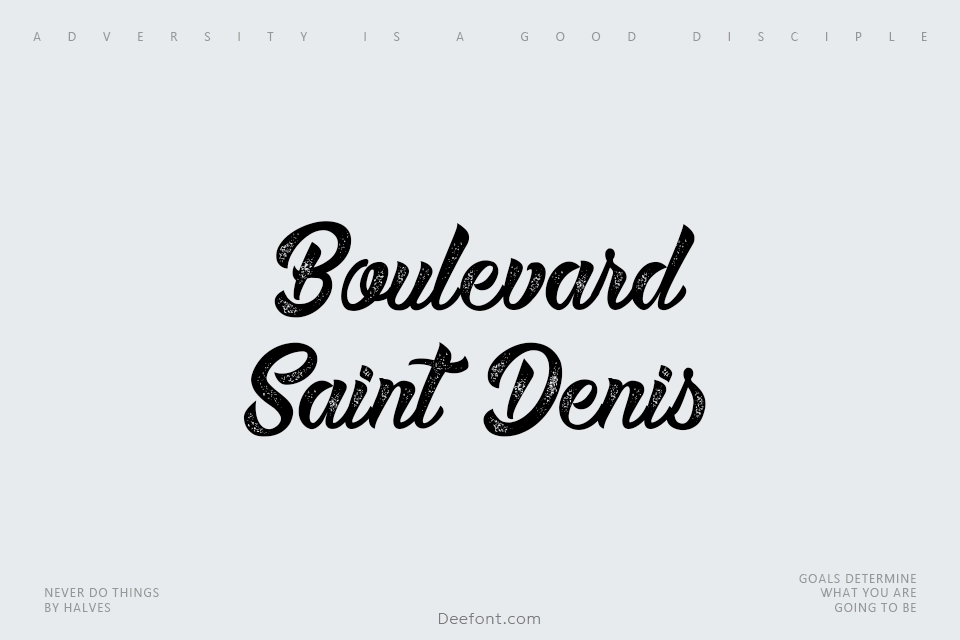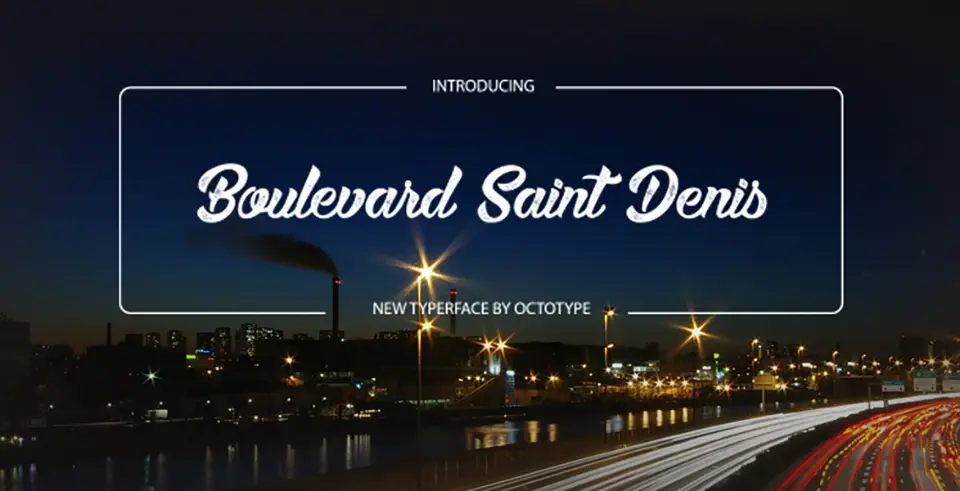
Boulevard Saint Denis Font
Boulevard Saint Denis is a bold, textured script font featuring a dynamic hand-painted style with sweeping curves and flourishes. The uppercase letters showcase sophisticated letterforms with exaggerated loops and elegant tails, while lowercase characters maintain consistent flow throughout. This versatile typeface combines vintage aesthetics with contemporary appeal, making it perfect for branding, packaging, posters, and invitations that require artistic flair and nostalgic charm. The textured appearance adds depth and character, ideal for creative projects seeking an elegant yet playful design solution.
Designed by:Octotype | Thomas Boucherie